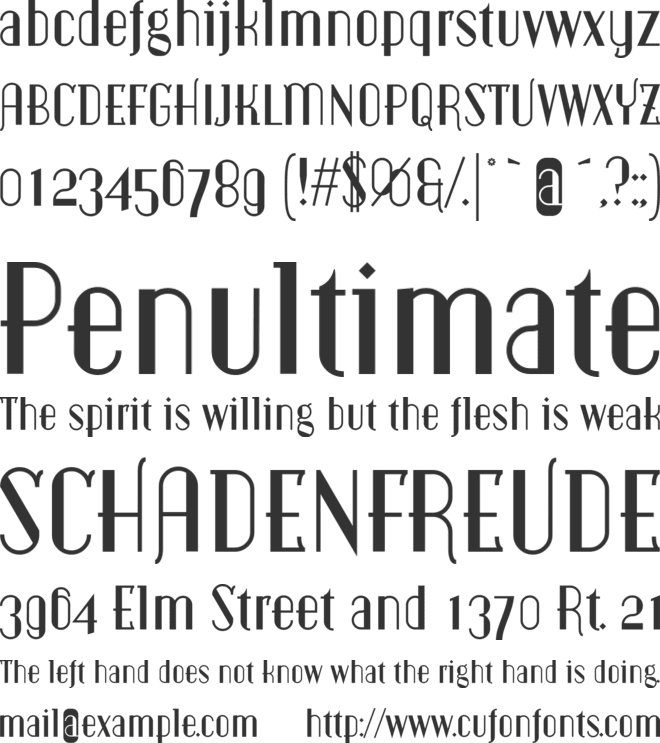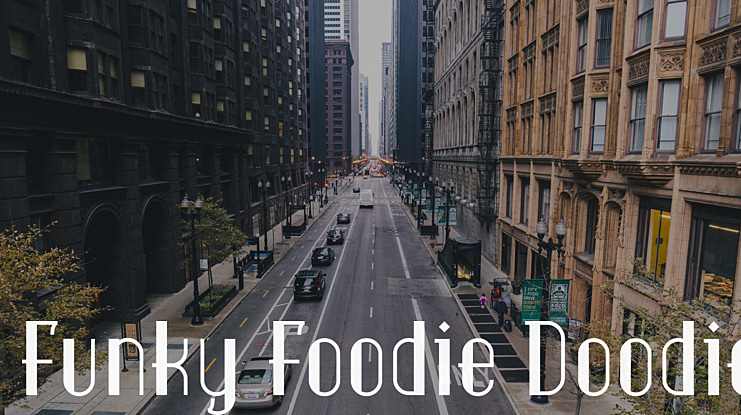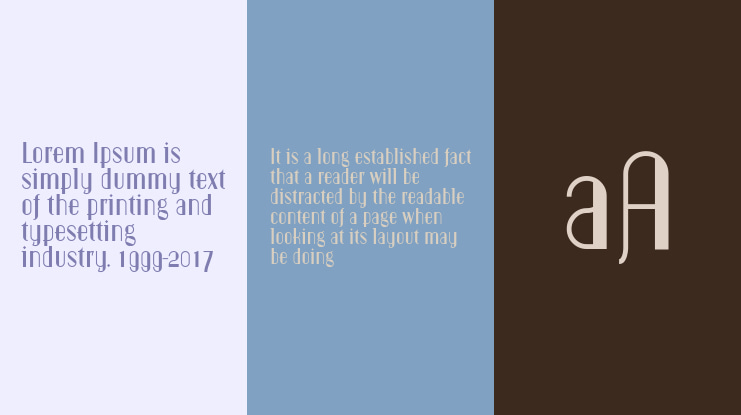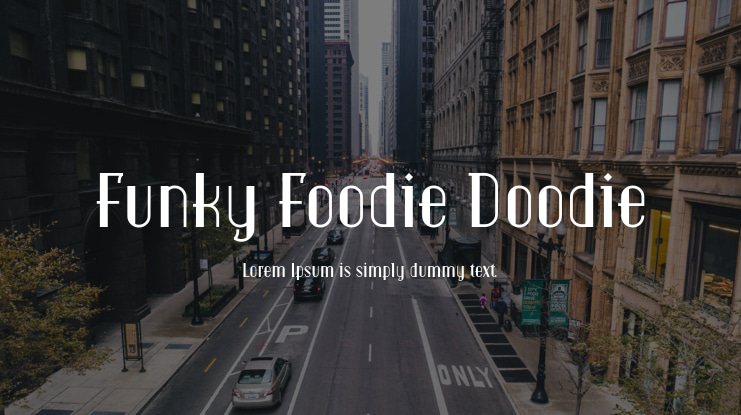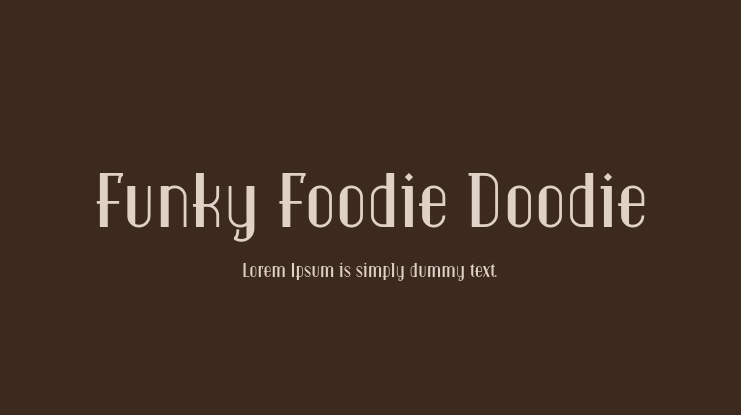
Funky Foodie Doodie Font Family
Many people in the food industry seem to have an appreciation for the Art Deco style of the 1930s, although I must admit I don't quite understand why. Nonetheless, I decided to create a pastiche of that particular era's aesthetic. I initially started with the thin version of the font about a month ago, and then went on to create three other variations. Eventually, I found myself returning to this original version, which proved to be quite laborious. Despite my personal feelings towards it, I'm sure there are individuals who will find it useful.
Funky Foodie Doodie font preview